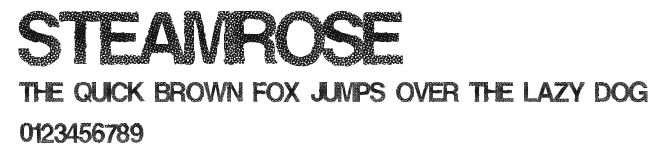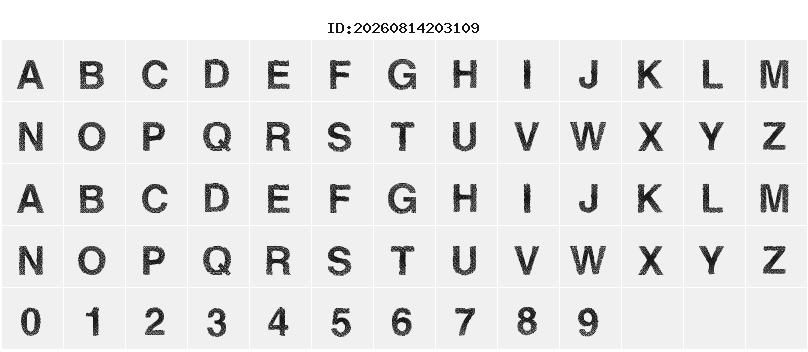
• Font Name: SteamRose
• Designer: Xerographer Fonts Max Infeld
• Description: Made at Xerographer Studios in Chico,CA a custom template by max infeld
About SteamRose.ttf
SteamRose.ttf is a modern, elegant sans-serif font designed for ultimate readability and visual harmony. Perfect for branding, headlines, web design, and print materials.